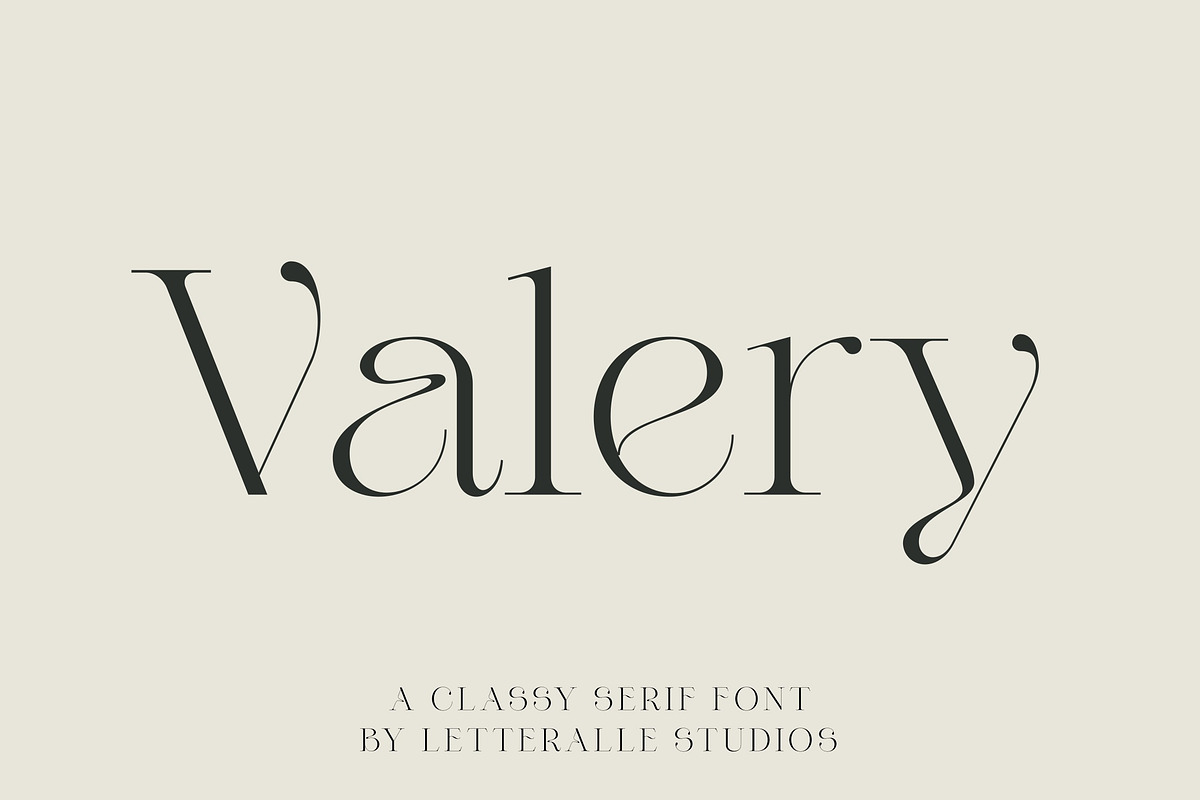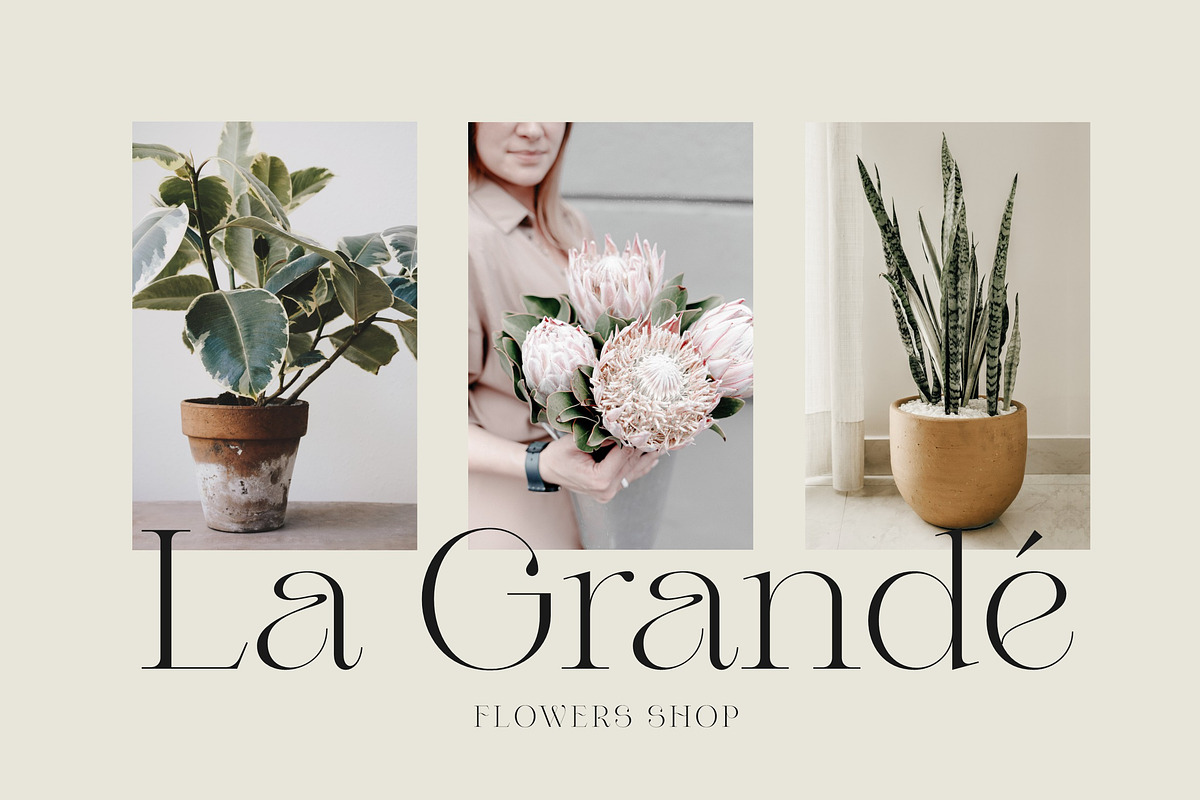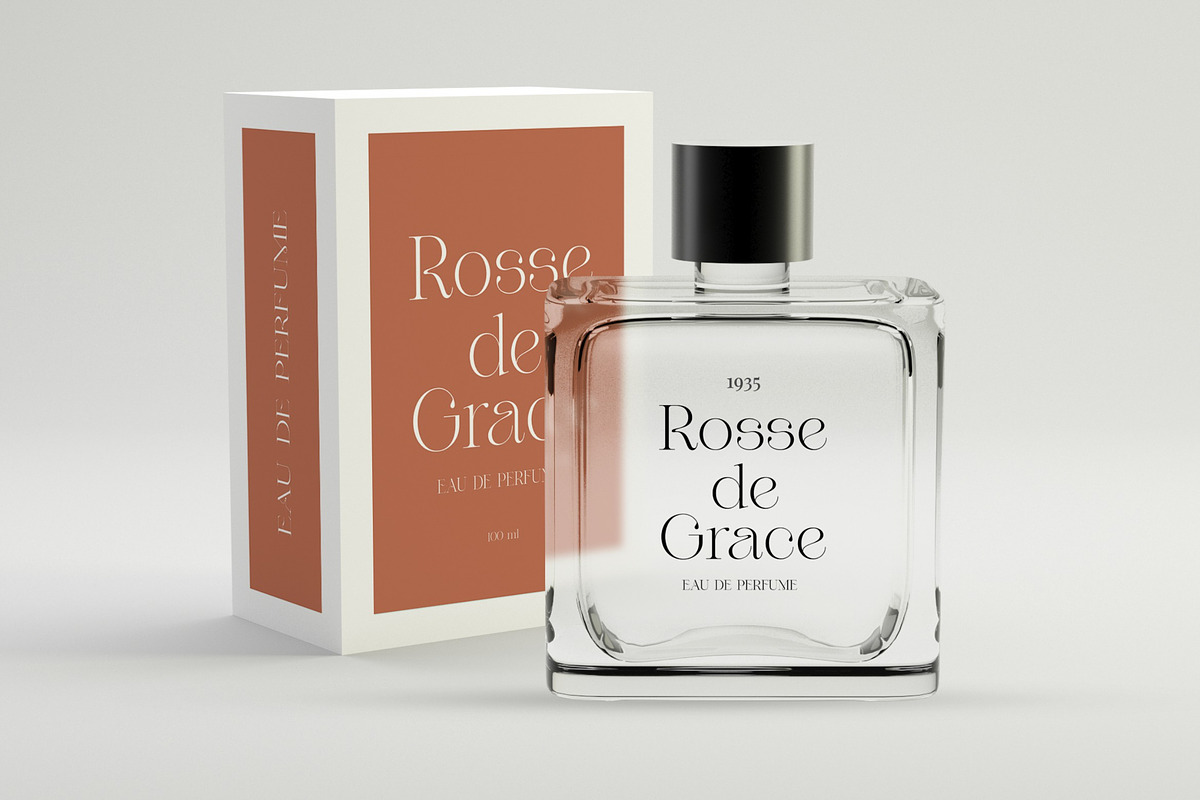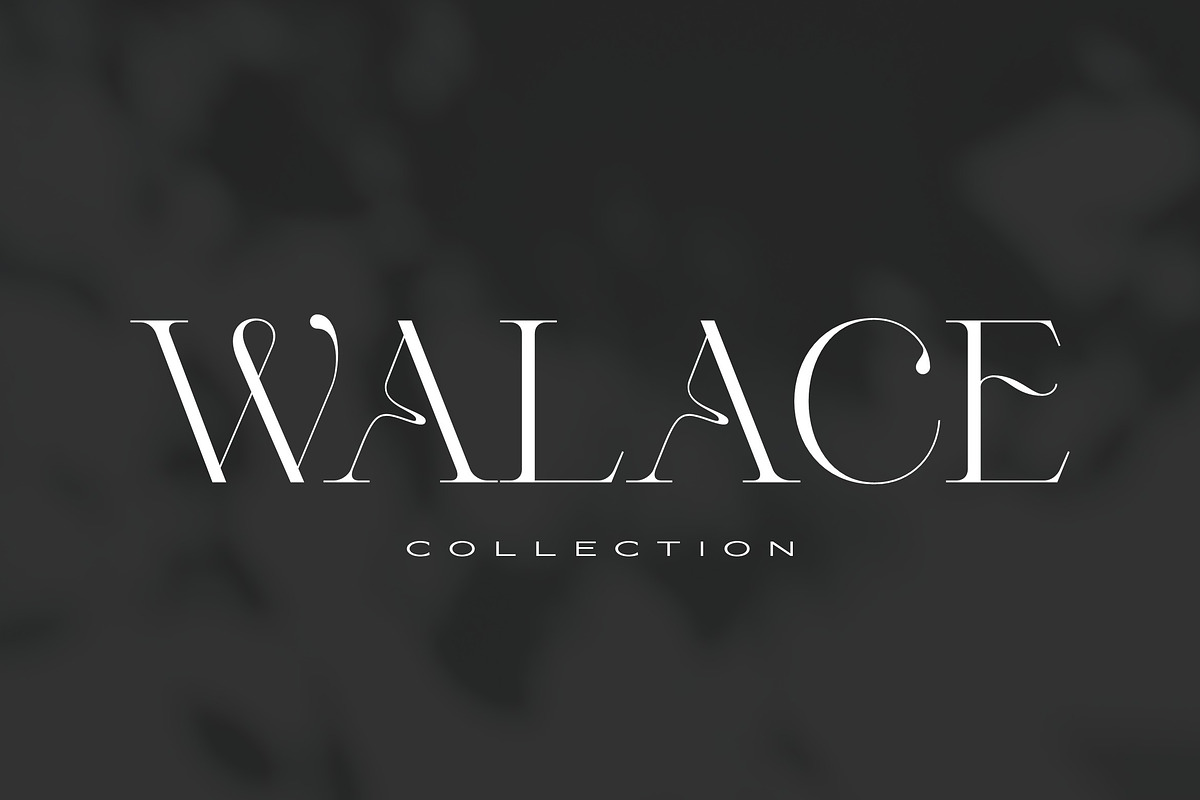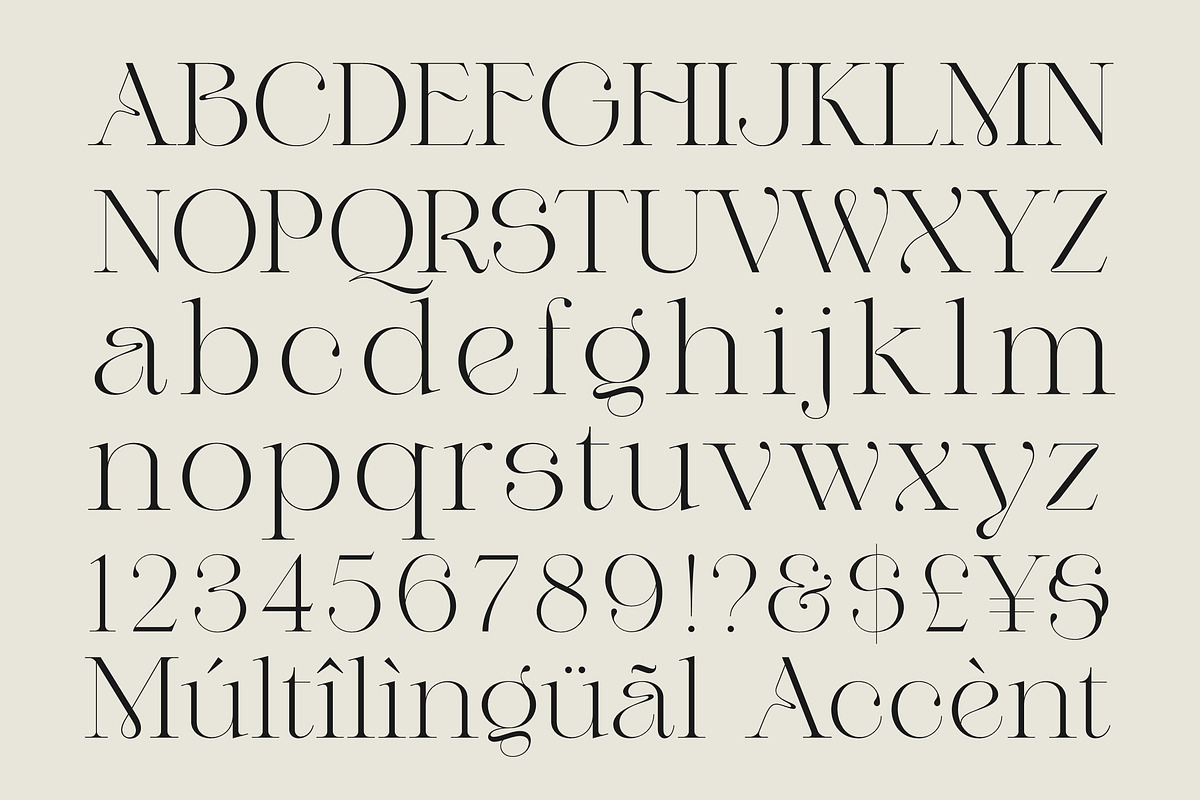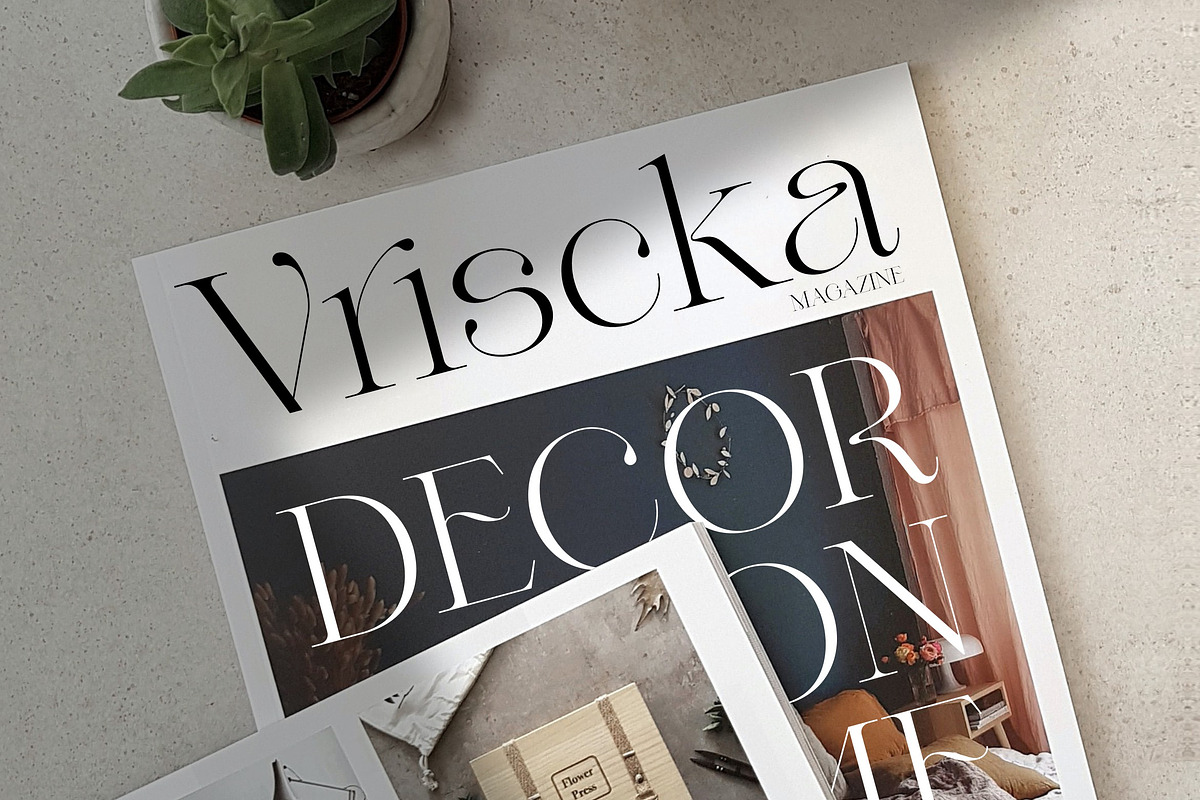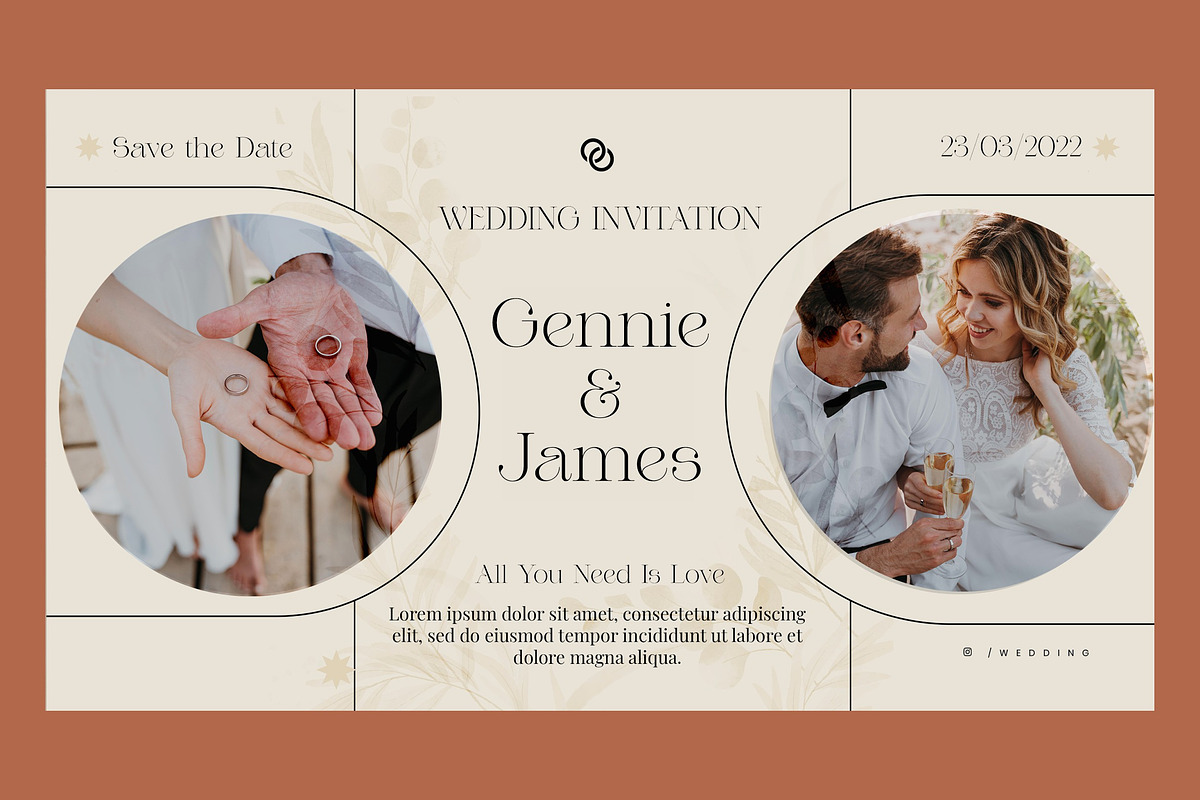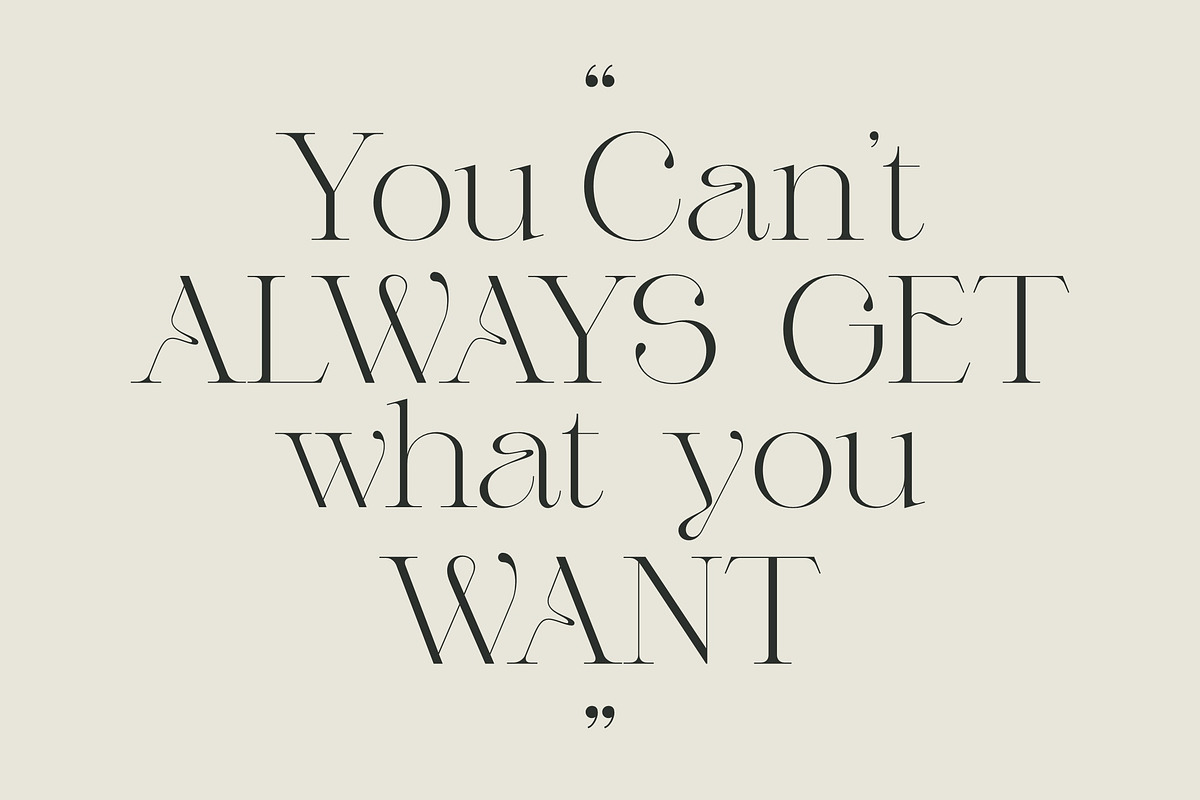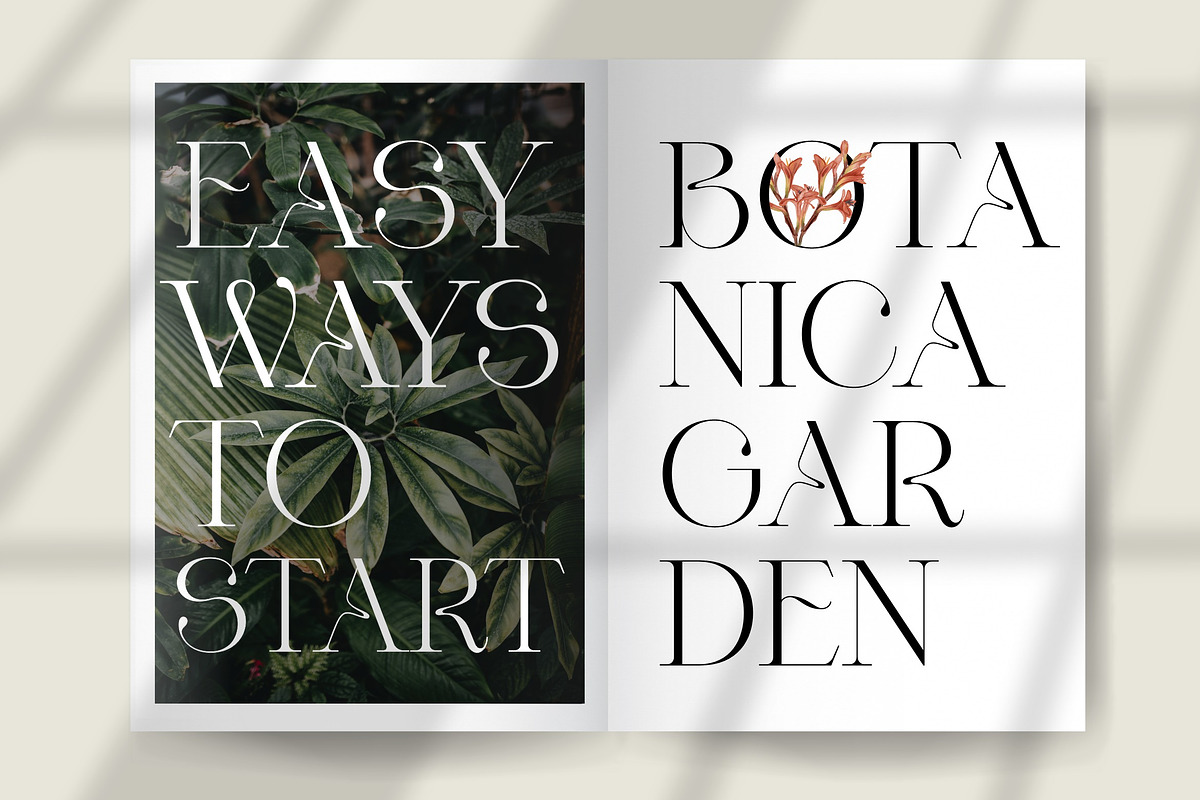
Valery Display Serif Font
Introducing, Valery! a serif display font with a modern yet luxurious style. Aesthetic and unique letterforms, as well as soft curves are the hallmark of this font.
Valery is a versatile and multigender font. Perfect for editorial projects, Logo design, Wedding, Clothing Branding, product packaging, magazine headers, or simply as a stylish text overlay to any background image.